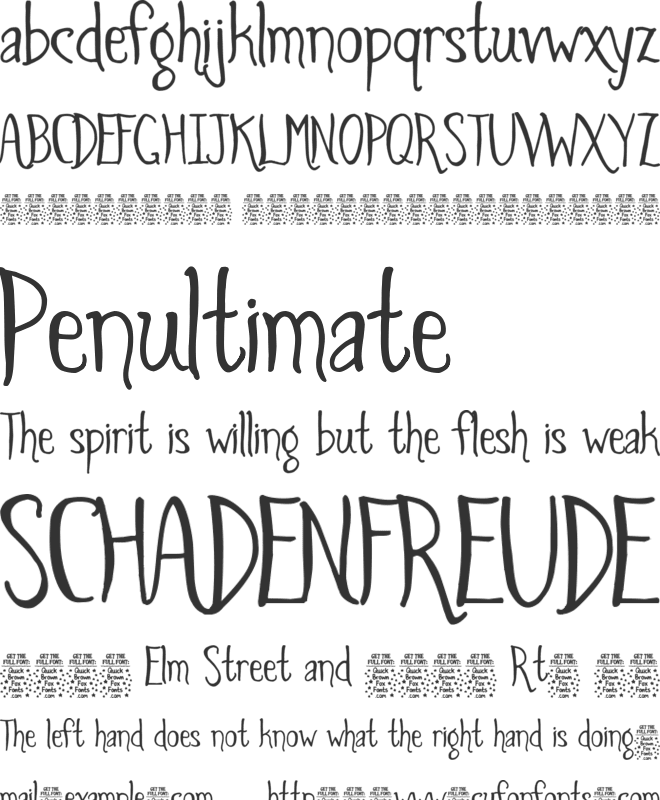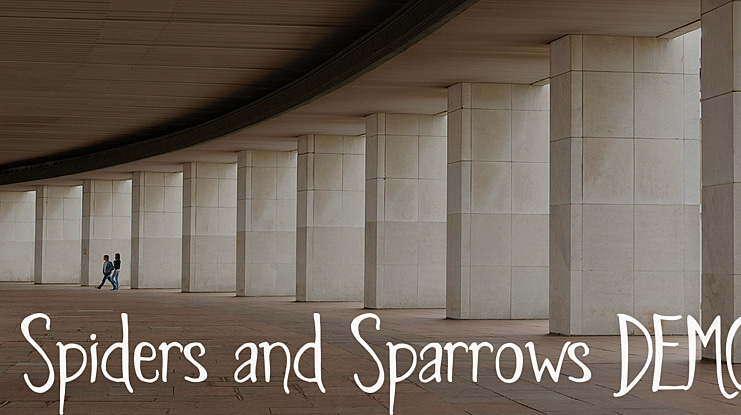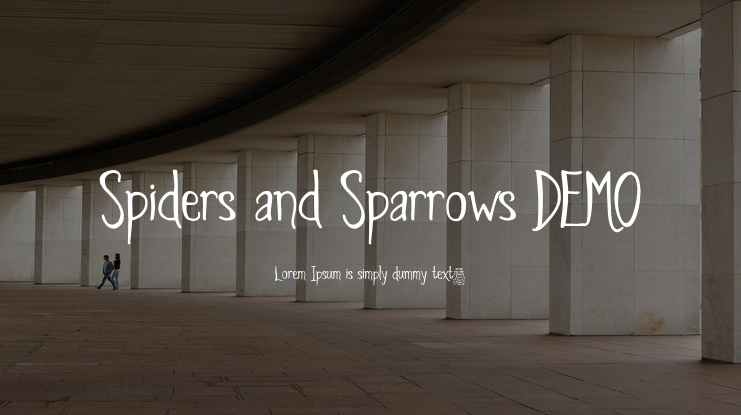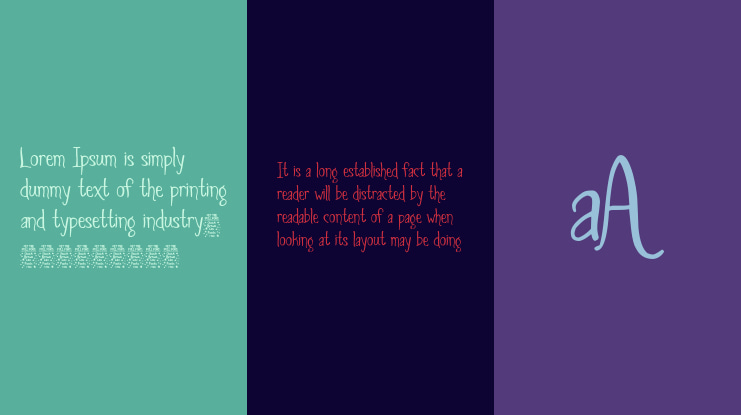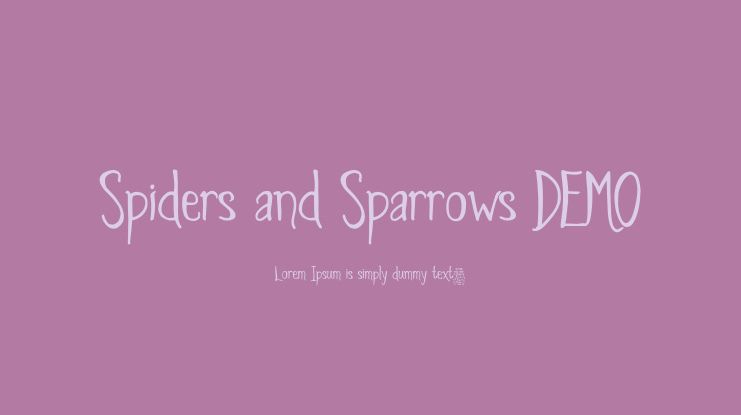
Spiders and Sparrows DEMO Font
Spiders and Sparrows is a playful, mischievous, slightly gothic and somewhat creepy font. It looks good in title case, all caps, or all lowercase. Smaller sizes look creepier.